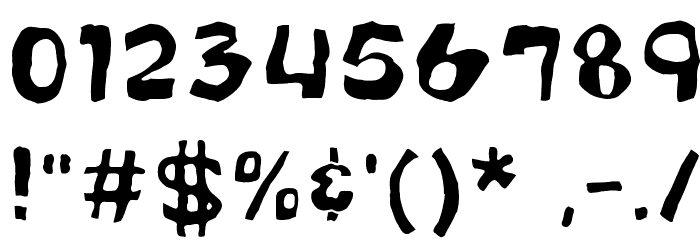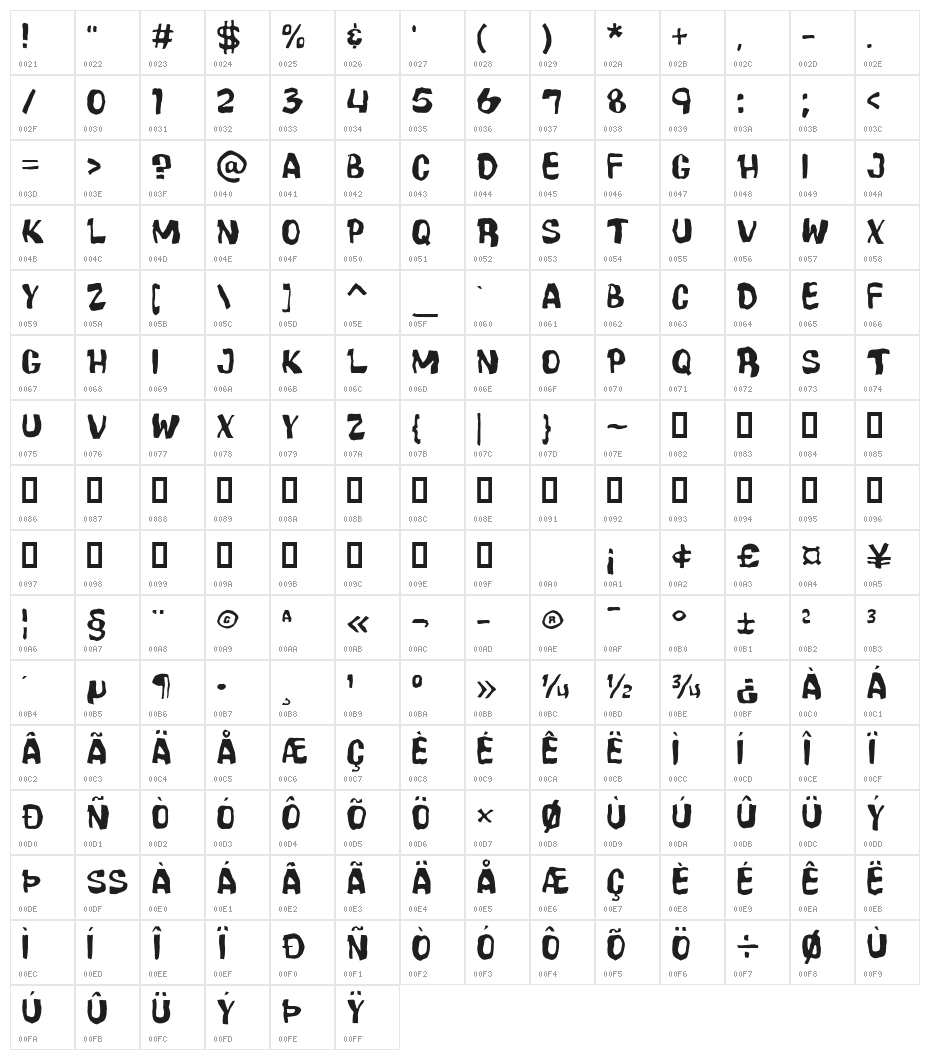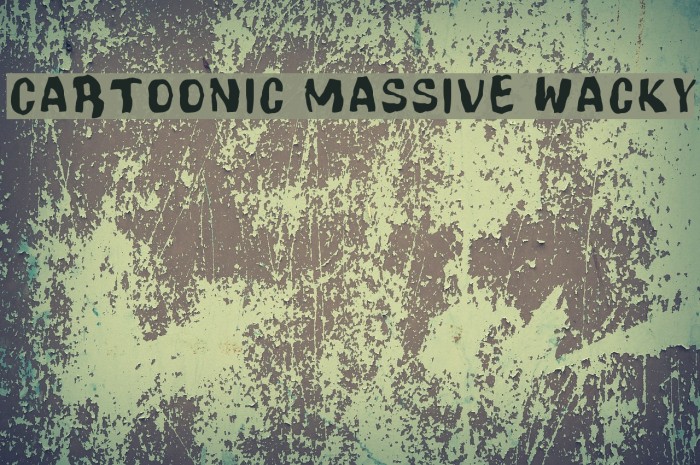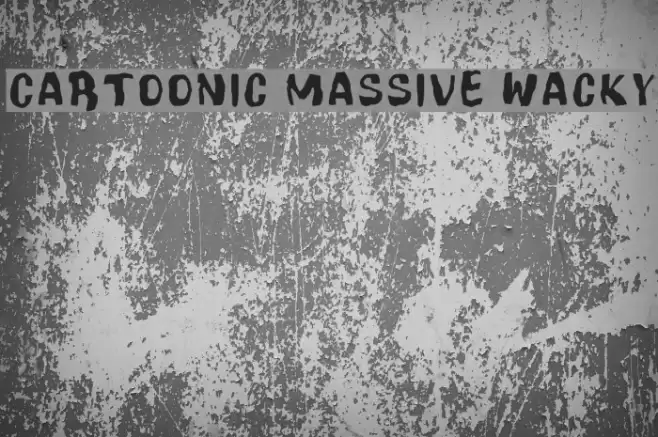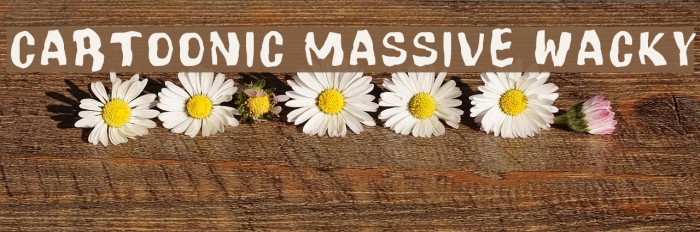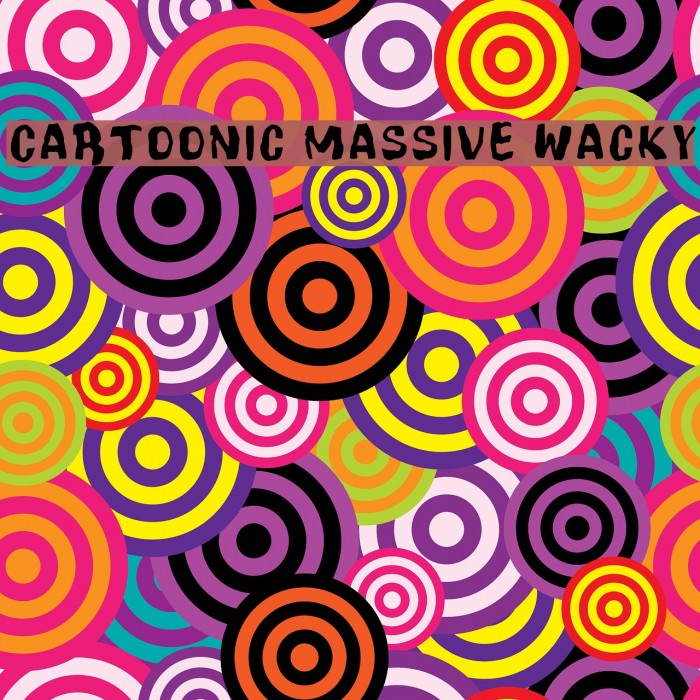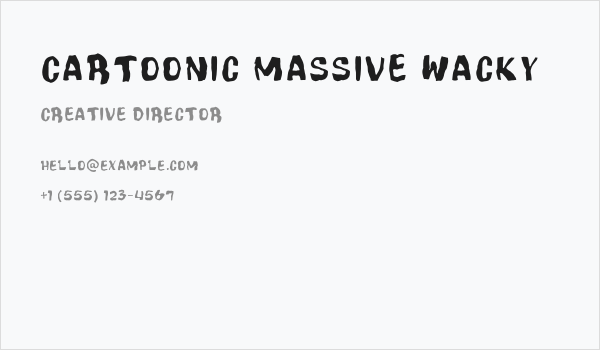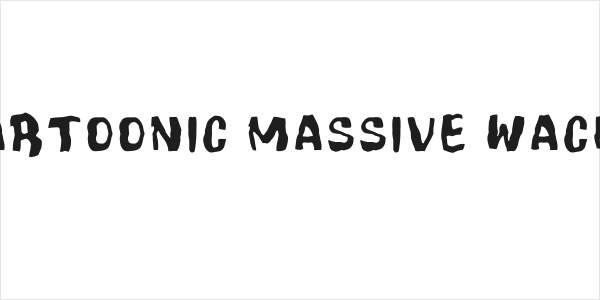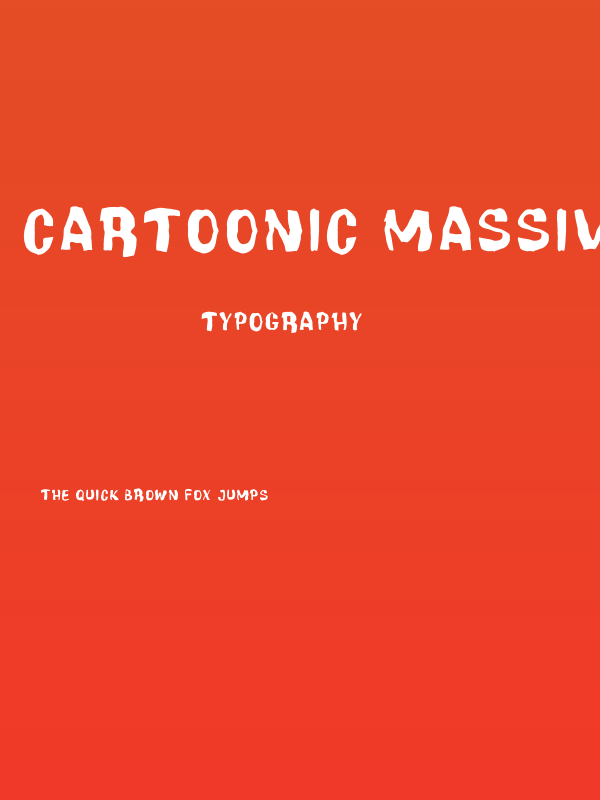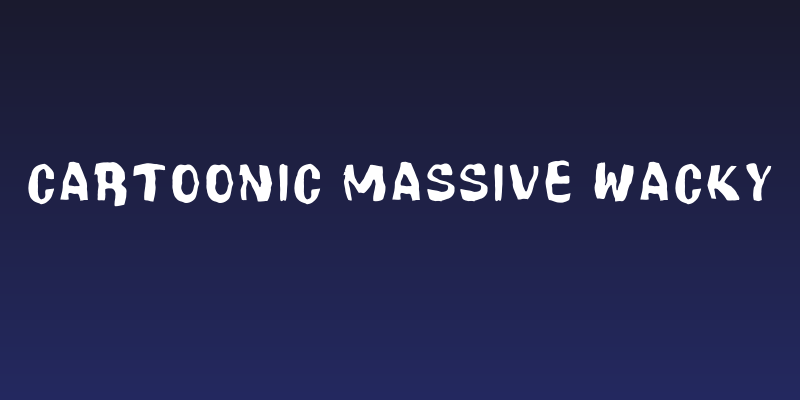
Cartoonic Massive Wacky Font
Cartoonic Massive Wacky Description
This font features a bold and playful design with exaggerated, wacky shapes that give it a cartoonish feel. The characters are massive and have a hand-drawn appearance, with irregular edges and a slightly uneven baseline that adds to its whimsical charm. The strokes are thick and heavy, contributing to a strong visual impact, while the overall style is informal and fun. This font is perfect for projects that require a lively and energetic touch, such as children's books, comic strips, or playful branding.
| Overall Style | Cartoonish, Playful |
| Proposed Projects | Ideal for children's books, comic strips, playful branding, and fun posters. |